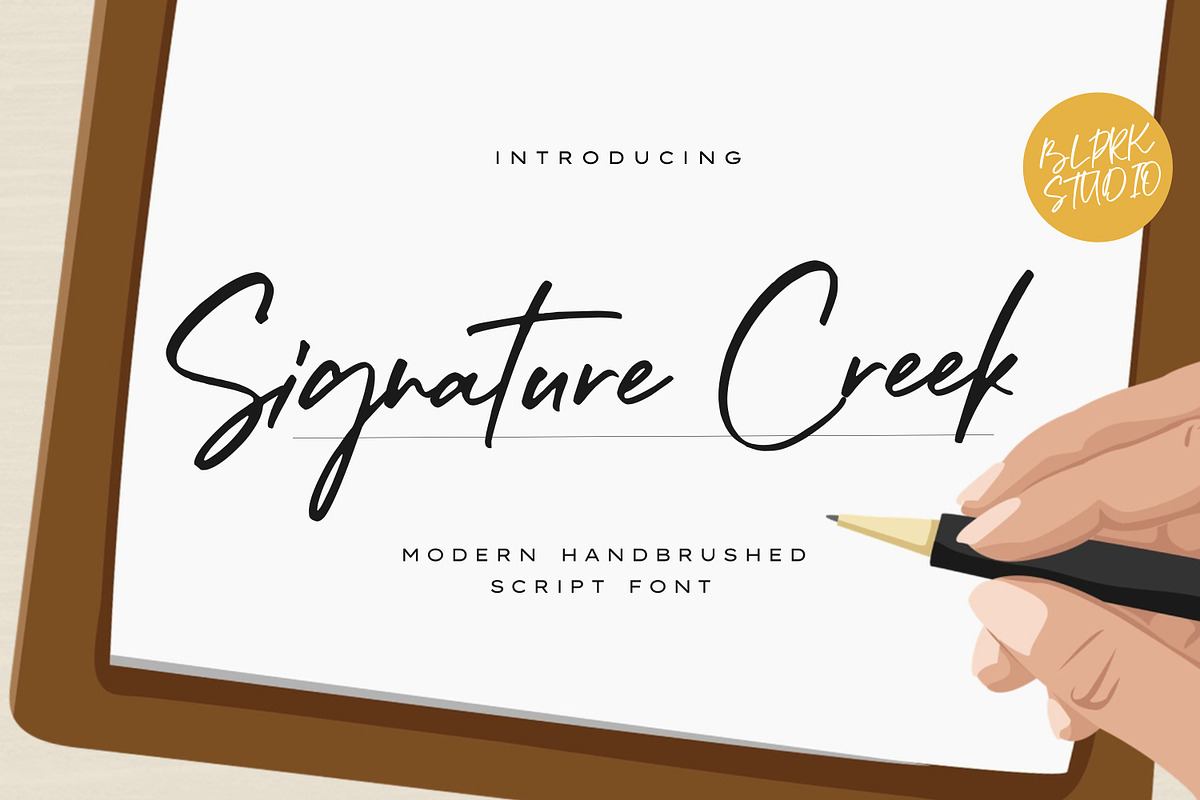
Signature Creek - Handbrushed Font Free Download
Signature Creek - Handbrushed Font Free Download is a bold and expressive handwritten script typeface that combines a natural brushstroke aesthetic with a touch of elegance. Perfect for creating custom signatures, branding, invitations, social media posts, and any design that calls for a personal and artistic flair.
With its dynamic, flowing strokes, Signature Creek - Handbrushed Font Free Download offers a strong, contemporary look while maintaining a warm, handcrafted feel. It’s ideal for projects that need a bit of personality and creativity, like logos, product labels, and even tattoos.
Make your designs stand out with Signature Creek - Handbrushed Font Free Download, and let your typography bring a unique, handcrafted touch to your work. Perfect for creatives who want to add personality and style to their projects.